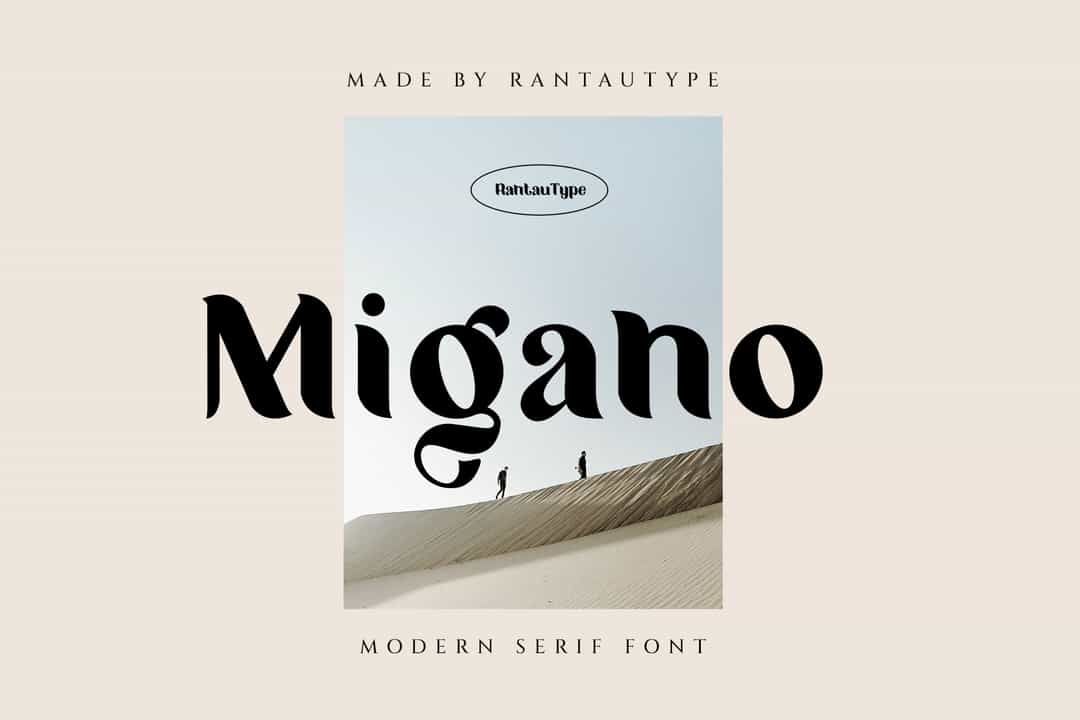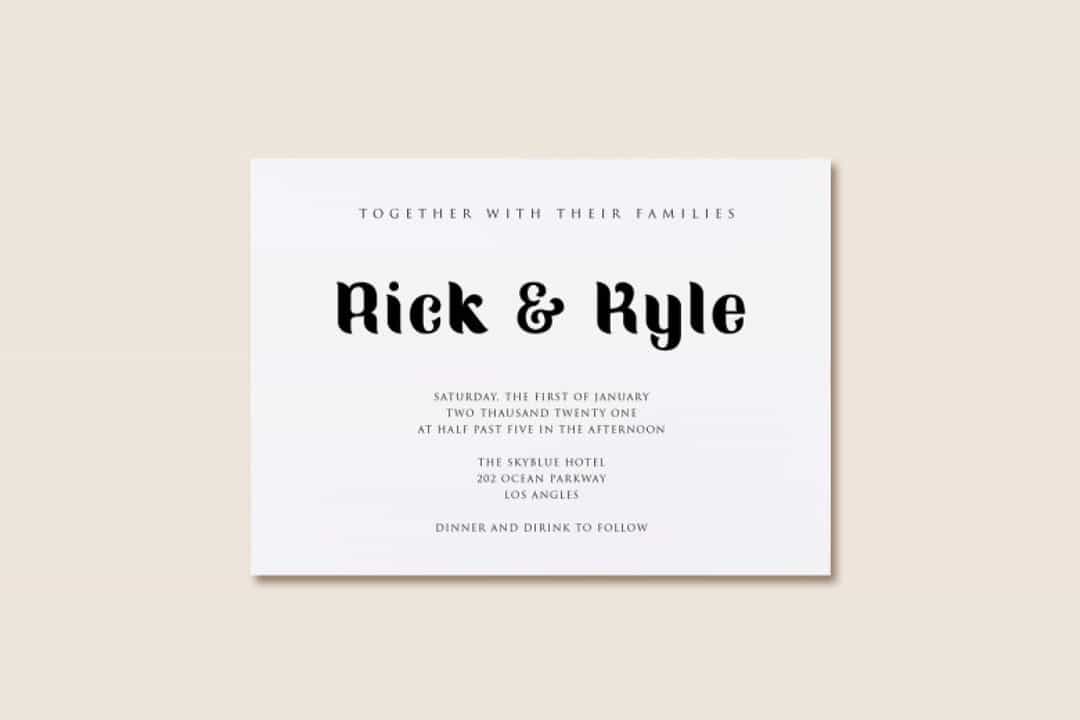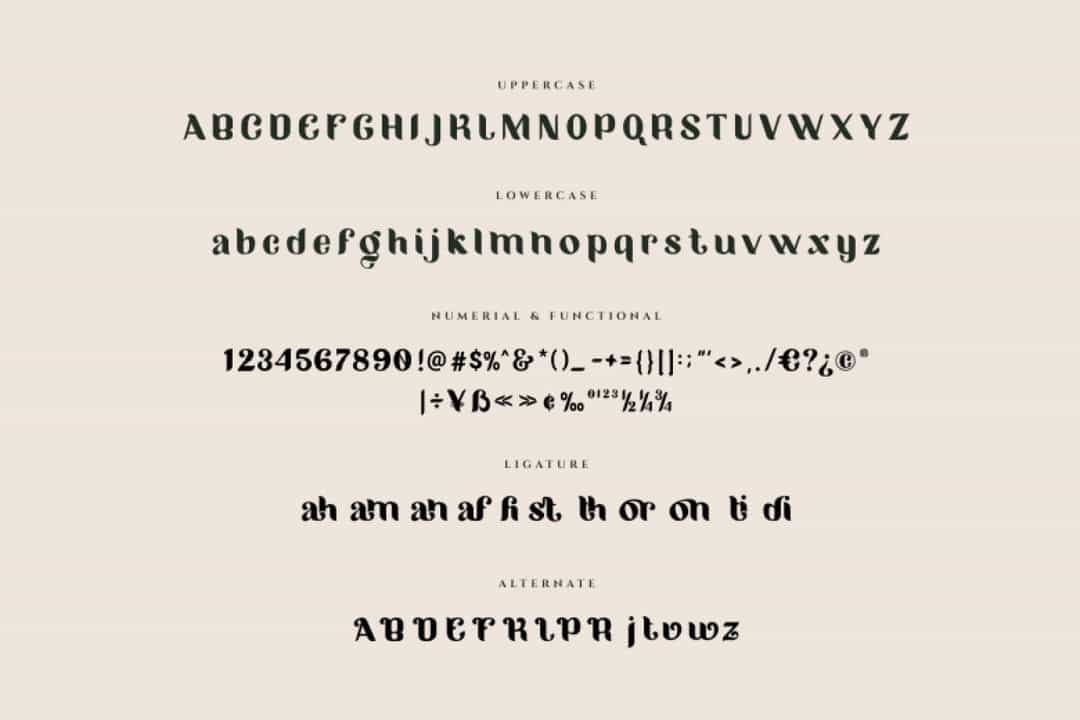
Discover Migano Font, part of the Serif collection—a versatile and unique font perfect for adding a personal touch to your projects. Download it for free and enjoy crafting designs with style, from invitations to social media posts. This font is available exclusively for personal use, giving you the freedom to create without limits. Unlock your creativity with Migano Font today!
Migano Serif is an elegant and bold lowercase and uppercase typeface, ideal for logos, branding, masterheads, invitations and so forth. I provide separate versions with and without ligatures so that you may decide how you wish to use this font in any given context.